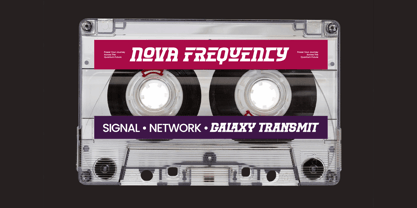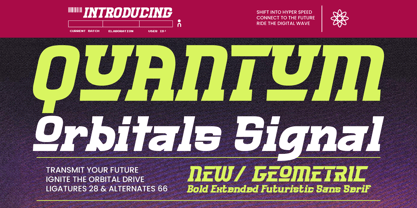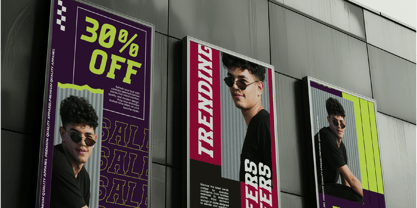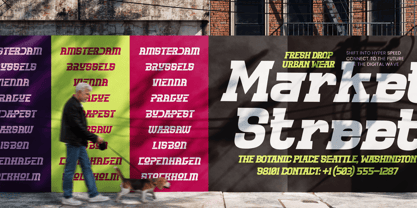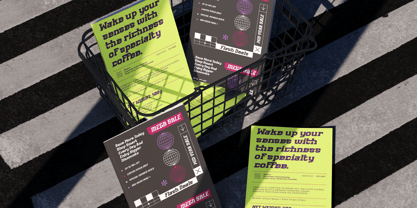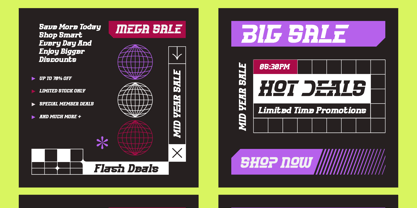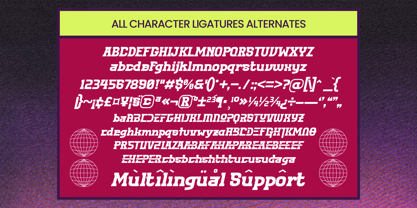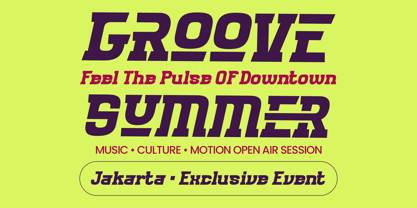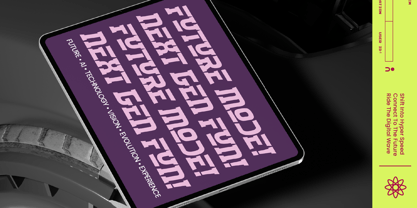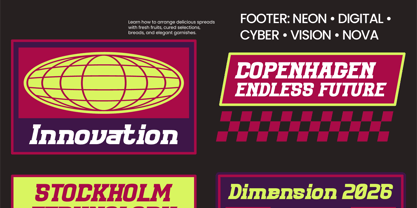
Quantum Orbitals Signal
by Timelesstype Studio
The Quantum Orbitals Signal Font Family was designed by Heru Utama Putra and published by Timelesstype Studio. Quantum Orbitals Signal contains 2 styles and family package options. More about this family
Redefine the visual landscape of modern technology with a typeface built for speed and power. Quantum Orbitals Signal – Bold Extended Futuristic Sans Serif commands attention with its high-impact typography and futuristic aesthetic, making it the definitive choice for projects requiring visual dominance. This typeface embodies a sense of momentum, perfectly capturing the essence of the digital age through its wide-track letterforms and slanted, energetic stance.